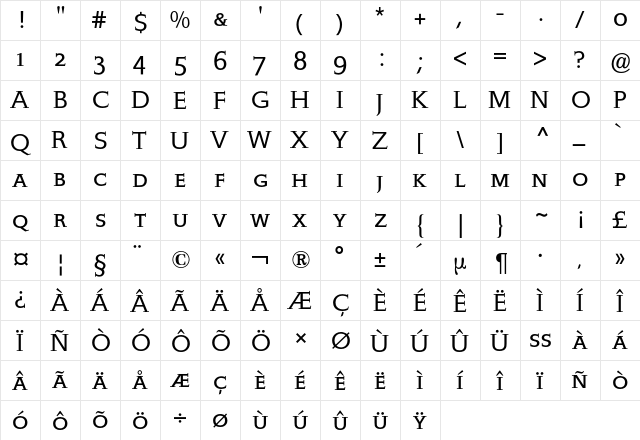
Epikur Expert BQ Regular
Design Context for Epikur Expert BQ Typeface
Epikur Expert BQ takes a measured approach to typography — its balanced proportions and neutral character make it a reliable workhorse for both digital and print work.